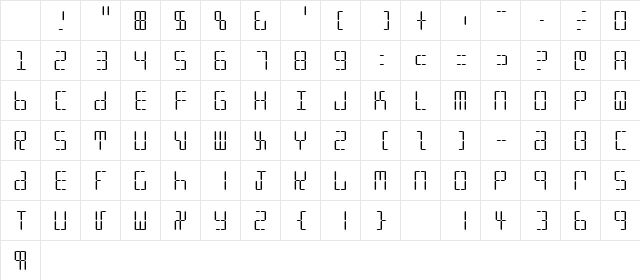
Complete Watchmaker Medium glyph index. Displaying only characters natively supported by Watchmaker Medium font.
Watchmaker is a composed and adaptable typeface that performs quietly and consistently across a wide range of design contexts.